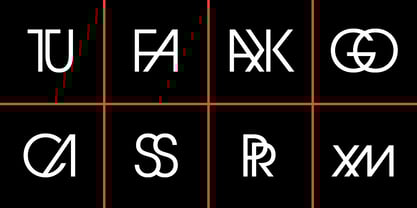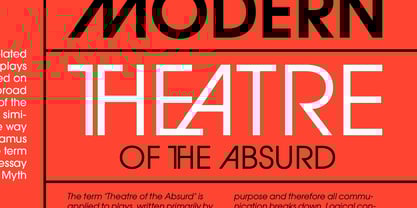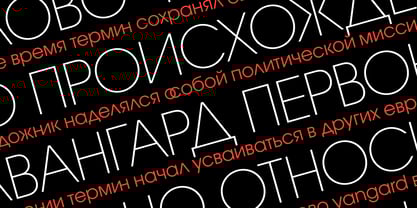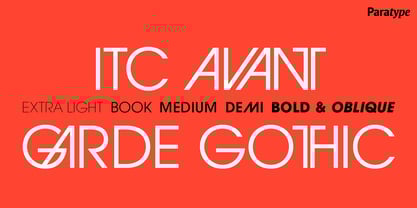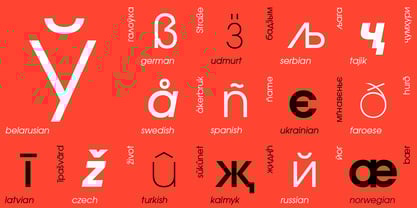
ITC Avant Garde® Gothic
by ParaType
The ITC Avant Garde Gothic Font Family was designed by Vladimir Yefimov, Olga Umpeleva and published by ParaType. ITC Avant Garde Gothic contains 10 styles and family package options.
An absolutely geometric sans serif for headlines, logos, and advertising. Thanks to its precise character shapes and a wealth of ligatures, Avant Garde is ideal for creating logos and typographic compositions in the spirit of American graphic design from the 1970s.
The typeface was designed by Herbert Lubalin and Tom Carnase in 1970 for the International Typeface Corporation. It was originally based on a logotype the duo created in 1967 for Avant Garde magazine, drawing inspiration from the geometric sans serifs popular in the 1920s and ’30s. Oblique styles were later added in 1977 by André Gürtler, Christian Mengelt, and Erich Gschwind.
The Cyrillic versions of the four primary styles were developed at Paratype (then ParaGraph) by Vladimir Yefimov in 1993. Additional Cyrillic styles were designed in 2009 by Evgeny Nedelko, Isabella Chaeva, and Olga Umpeleva.
Cyrillic alternates and ligatures for select styles (Book, Book Oblique, Demi Bold, Demi Bold Oblique) were also introduced in 2009 by Vladimir Yefimov and Olga Umpeleva.
Designers: Vladimir Yefimov, Olga Umpeleva
Publisher: ParaType
Foundry: ParaType